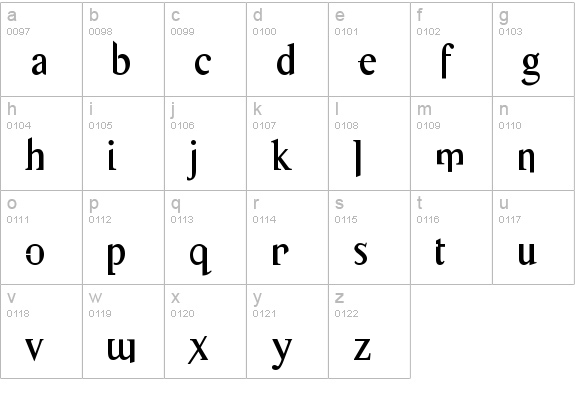
Thymesans96 Font Details
Thymesans96 font is an exquisite display typeface that effortlessly combines elegance with a touch of modernity. With its unique letterforms and delicate curves, this font is perfect for creating visually stunning designs that demand attention. Designed with versatility in mind, Thymesans96 can be used for a wide range of applications, including editorial design, branding, advertising, and more. Its clean lines and balanced proportions make it highly legible, ensuring readability across various mediums and sizes. What sets Thymesans96 font apart is not only its exceptional design but also its accessibility. This font is freely available to download at FontsMarket.com, allowing designers and enthusiasts alike to effortlessly incorporate it into their projects without any additional cost. This makes it an ideal choice for those seeking quality typography without breaking the bank. Whether you're looking to elevate your website, design eye-catching posters, or create captivating social media graphics, Thymesans96 font is the perfect companion. With its free availability and stunning aesthetic, it's a font that will undoubtedly enhance any creative endeavor.